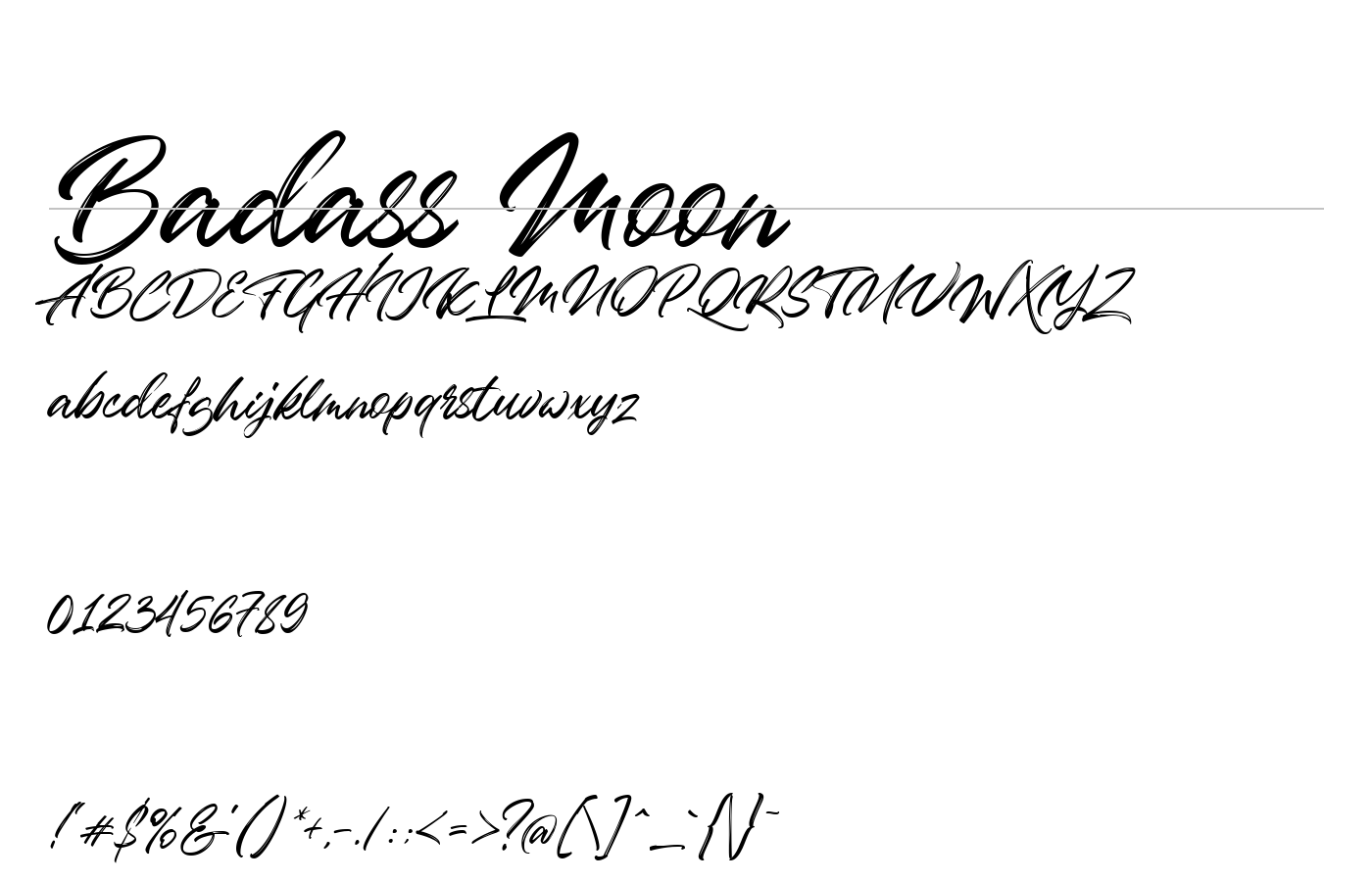
Badass Moon is a stylish script font with a confident, handwritten feel, featuring smooth, flowing strokes and dynamic contrast between thick and thin lines. Its elegant yet edgy character makes it perfect for creative branding, invitations, and headlines that want to stand out with personality and flair. This font works well where a modern, artistic touch is needed to convey uniqueness and sophistication.
Badass Moon Font
About Badass Moon Font
| Font family | Badass Moon Font |
| Designer | Clement Nicolle |